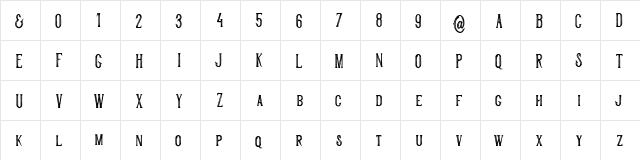
Historycal Inline Regular
| Foundry | Dikas Studio |
| Designer | Andika Setiawan |
Design Context for Historycal Inline Typeface
Historycal Inline is built around its visual character rather than neutral utility — its distinctive forms are designed to make an impression at display sizes.
Font Pairing: Pair with a clean neutral sans-serif for body copy to let Historycal Inline's character lead without overwhelming the composition.
Pro Tip: Treat Historycal Inline as the centrepiece of your typographic hierarchy. One strong heading set in a decorative face can carry an entire layout.